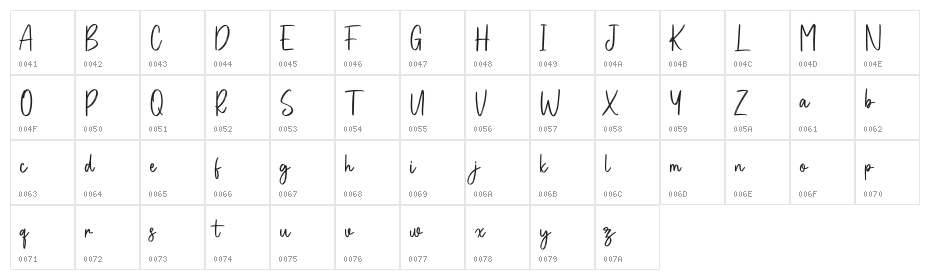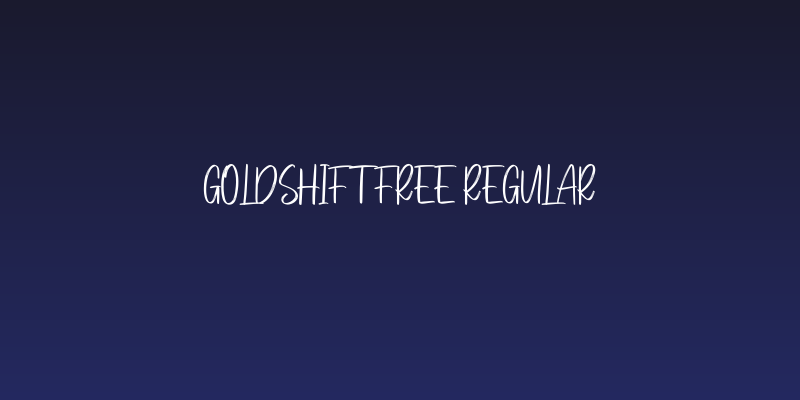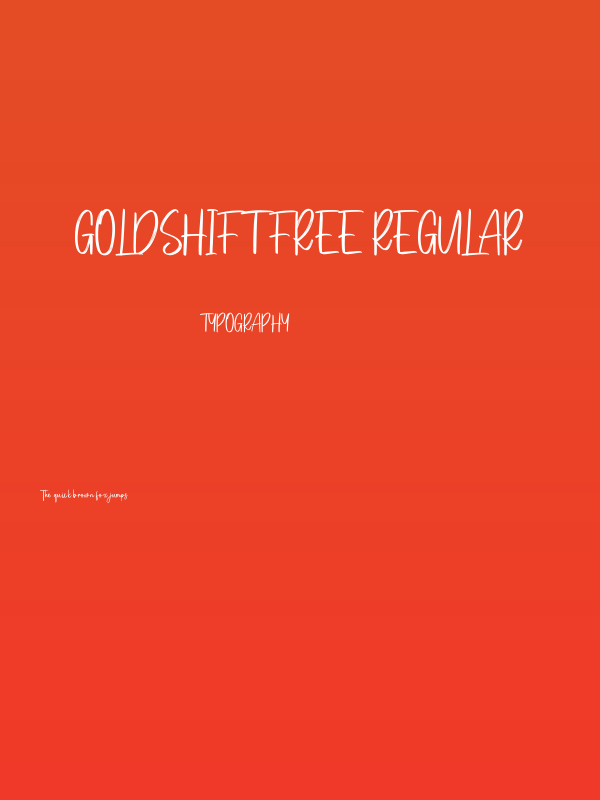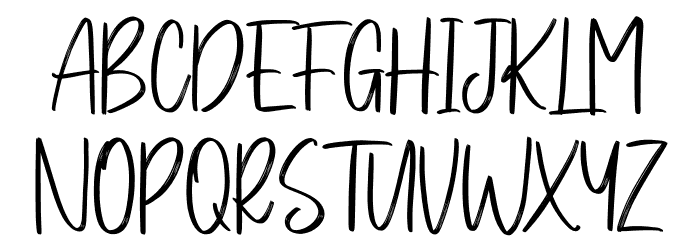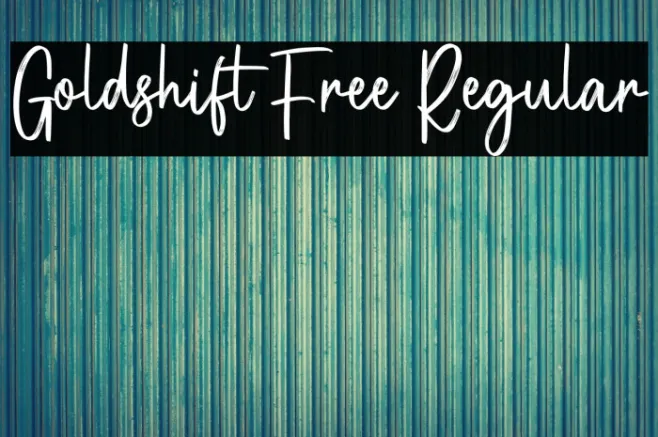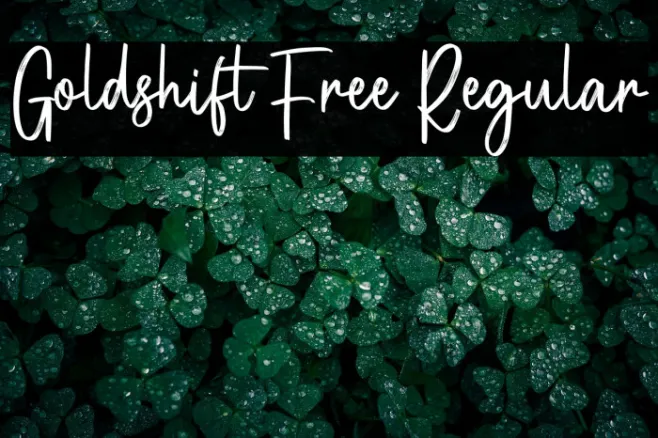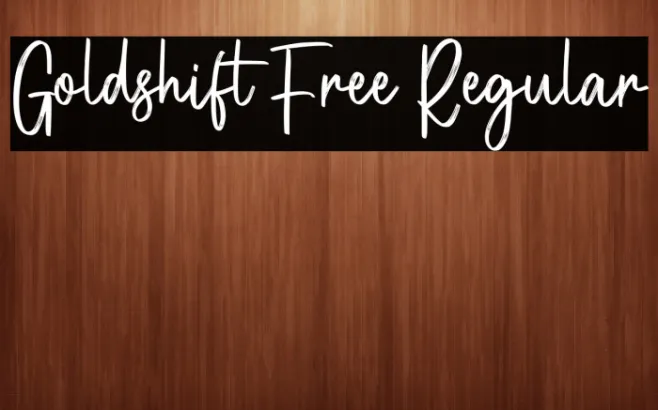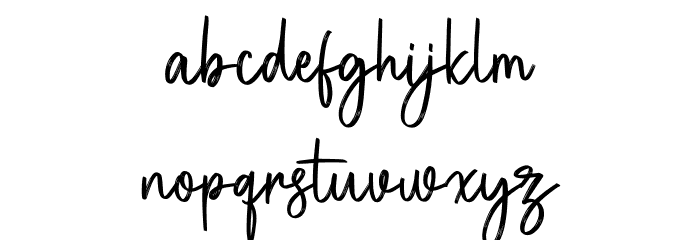
Goldshift Free Regular Font
Goldshift Free Regular Description
This font features a playful and casual handwritten style, characterized by its tall, narrow letterforms and slightly irregular strokes. The uppercase letters are bold and dynamic, with a slight slant that adds a sense of movement and energy. The lowercase letters maintain a consistent flow, with smooth curves and a natural, organic feel. The overall appearance is both modern and approachable, making it suitable for a variety of creative projects. The font's unique personality is enhanced by its distinctive character shapes, which include elongated ascenders and descenders, adding to its charm and versatility.
| Use Case | Headlines, Logos, Social media graphics |
| Proposed Projects | Ideal for greeting cards, invitations, branding, social media graphics, and personal projects that require a friendly and approachable touch. |